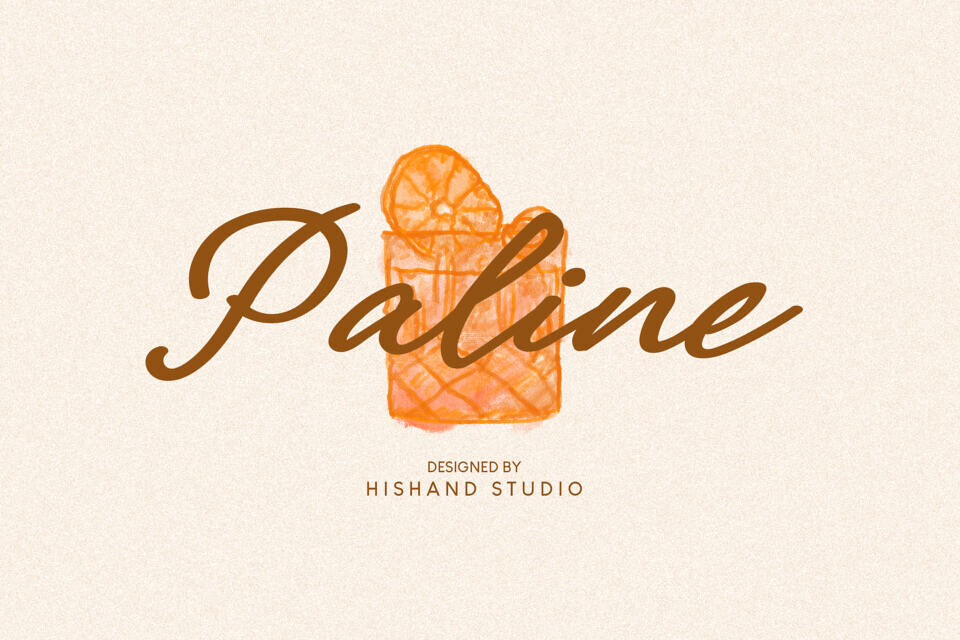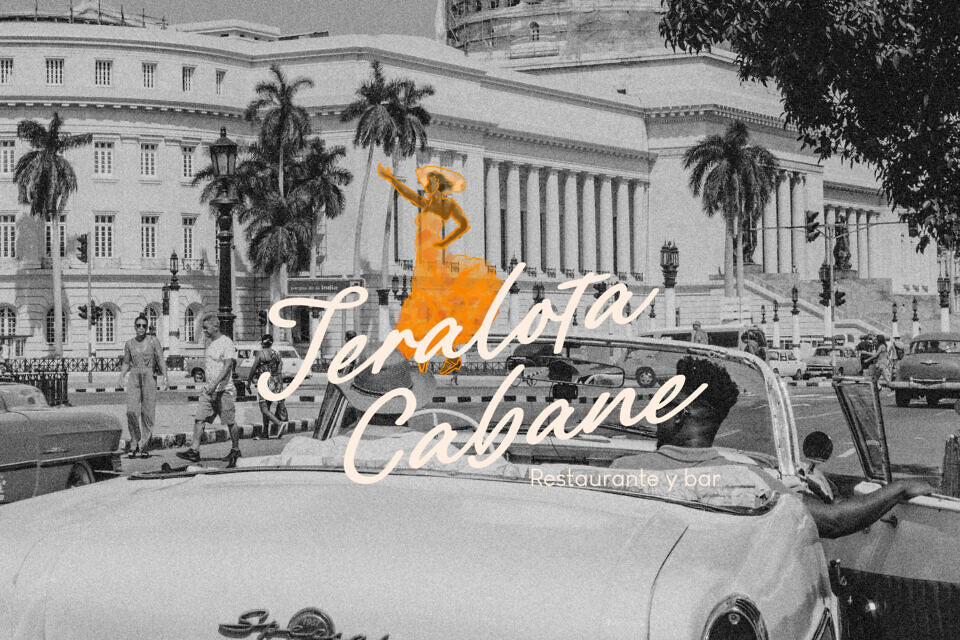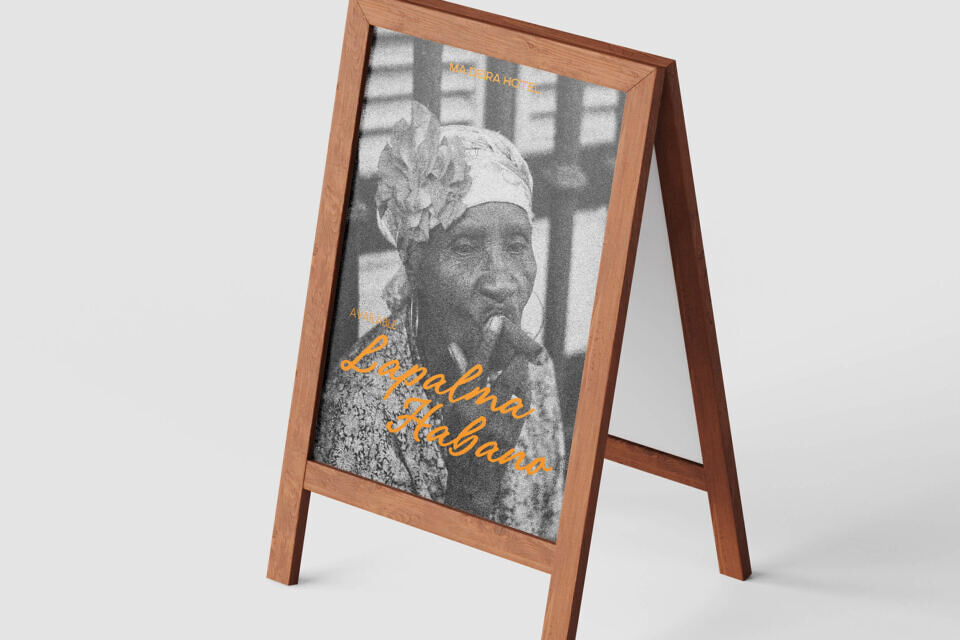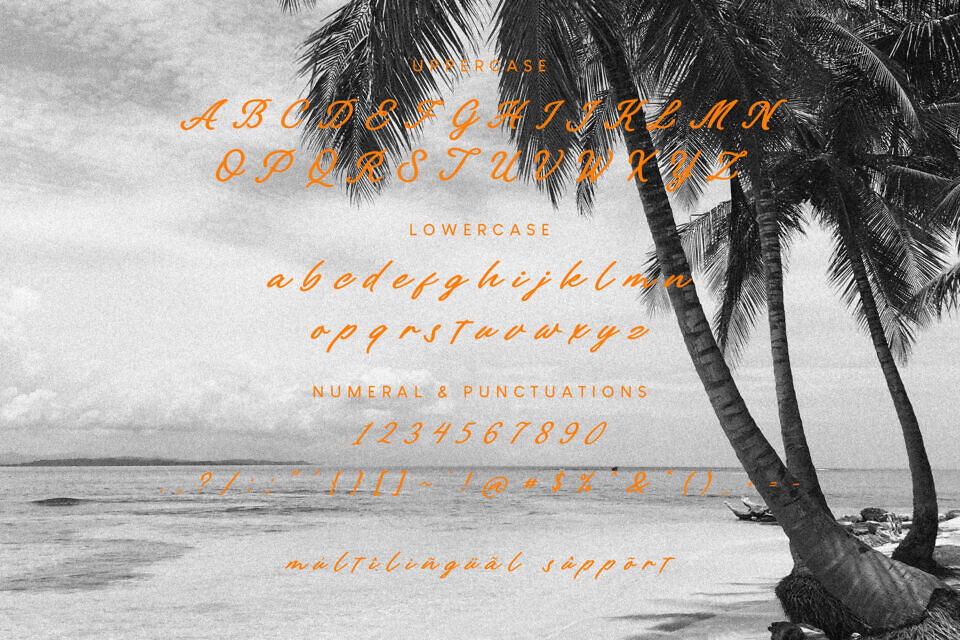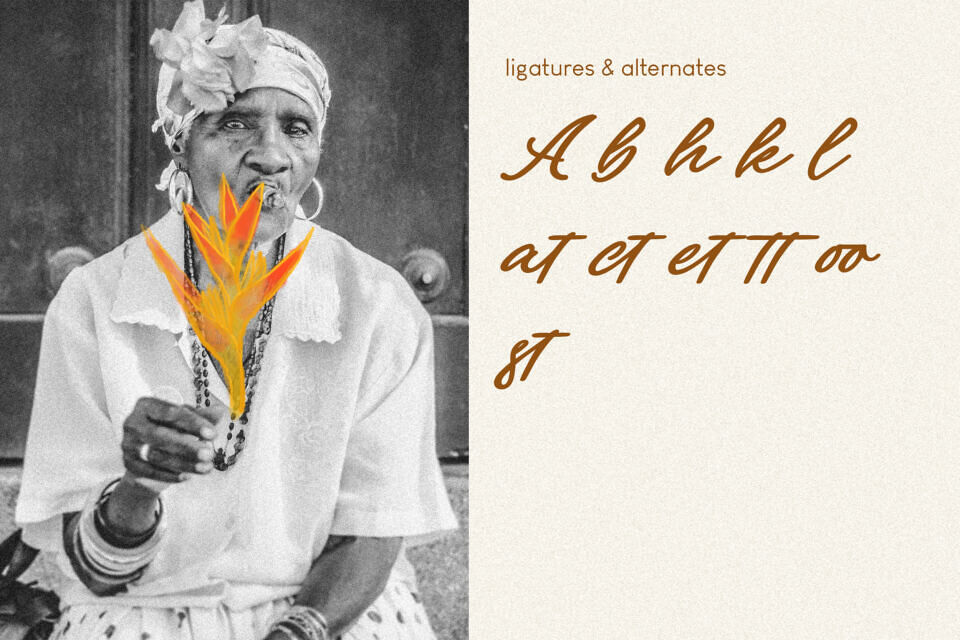
Paline Font
Paline, a graceful script font by Hishand Studio, blends natural handwriting with refined elegance. Its smooth, flowing lines and well-proportioned letterforms ensure readability and rhythmic beauty.
Versatile and cohesive, Paline conveys warmth and professionalism, making it ideal for wedding invitations, logos, and luxury branding. Each character is meticulously crafted, balancing classic calligraphy with modern flair.
Perfect for display sizes or smaller applications, Paline adds sophistication and personality to boutique branding, fashion editorials, and more, making it a timeless choice for designers seeking to create a lasting impression with charm and functionality.